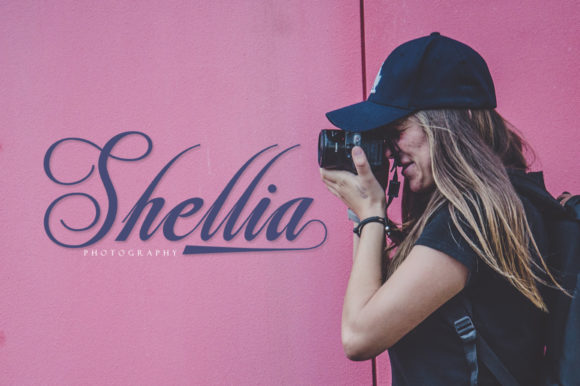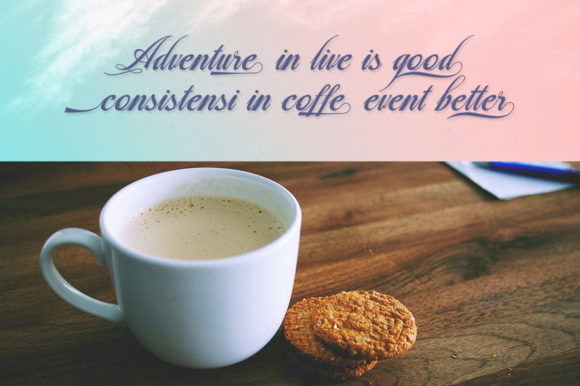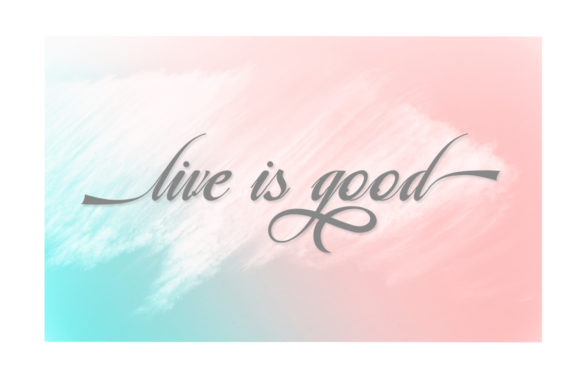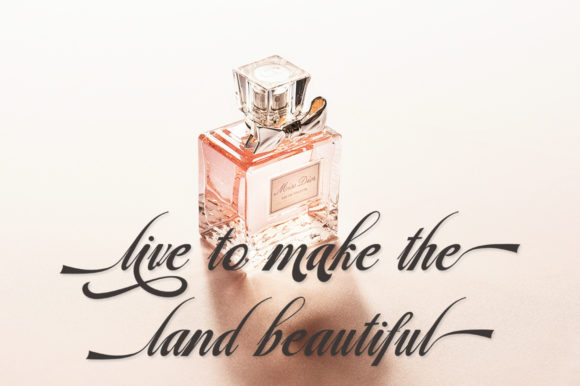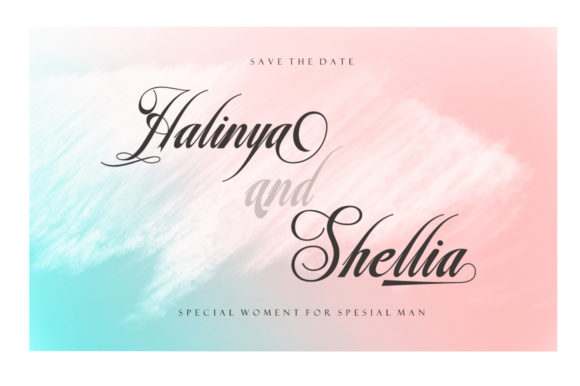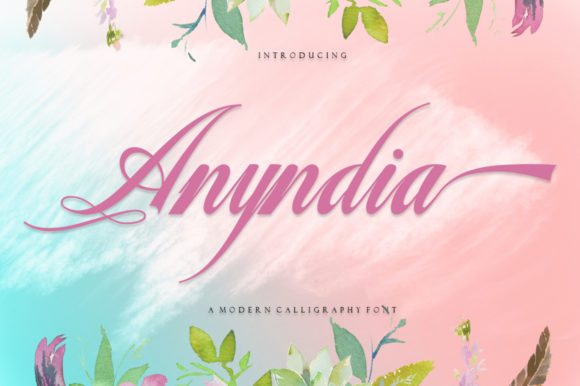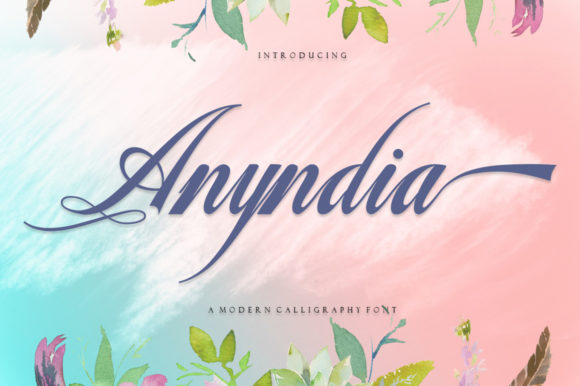
Introducing Anyndia Font: The Elegant and Modern Script Font for Your Creative Projects
Are you a designer or crafter looking for a font that exudes elegance, romance, and playfulness? Look no further than Anyndia Font! This stunning script font is designed to capture the hearts of creatives with its modern and sophisticated style. In this article, we’ll dive into the world of Anyndia Font, exploring its features, benefits, and uses, as well as provide tips on how to make the most of this beautiful font.
What is Anyndia Font?
Anyndia Font is a romantic script font that boasts an elegant and modern design. Its playful look and feel make it perfect for a wide range of creative projects, from wedding invitations and branding materials to digital content and craft projects. With its flowing lines and curvaceous strokes, Anyndia Font is sure to add a touch of sophistication and whimsy to any design.
Key Features of Anyndia Font
- Elegant and Modern Design: Anyndia Font features a sleek and contemporary design that is perfect for designers and crafters who want to create stunning visual content.
- Romantic and Playful Style: This font’s romantic and playful style makes it ideal for projects that require a touch of whimsy and sophistication.
- Highly Versatile: Anyndia Font can be used for a wide range of creative projects, from digital content to print materials.
- Easy to Read: Despite its elegant and cursive design, Anyndia Font is highly legible, making it perfect for body text and headlines.
Benefits of Using Anyndia Font
So, why should you choose Anyndia Font for your creative projects? Here are just a few benefits of using this stunning script font:
- Adds a Touch of Elegance: Anyndia Font’s elegant design adds a touch of sophistication to any project, making it perfect for high-end branding and marketing materials.
- Creates a Romantic Ambiance: This font’s romantic style is perfect for creating a warm and inviting ambiance in your designs, making it ideal for wedding invitations, Valentine’s Day cards, and other romantic projects.
- Stand Out from the Crowd: With its unique and modern design, Anyndia Font is sure to make your projects stand out from the crowd and grab the attention of your audience.
How to Use Anyndia Font
Anyndia Font is highly versatile and can be used for a wide range of creative projects. Here are a few ideas to get you started:
- Wedding Invitations: Use Anyndia Font to create stunning wedding invitations that exude elegance and romance.
- Branding Materials: Add a touch of sophistication to your branding materials, such as business cards, letterheads, and brochures.
- Digital Content: Use Anyndia Font to create engaging digital content, such as social media graphics, blog posts, and email newsletters.
- Craft Projects: Add a touch of whimsy and elegance to your craft projects, such as handmade cards, scrapbooking, and DIY decorations.
Tips and Tricks for Using Anyndia Font
Here are a few tips and tricks to help you make the most of Anyndia Font:
- Pair with Other Fonts: Experiment with pairing Anyndia Font with other fonts to create a unique and visually appealing design.
- Use for Headlines and Titles: Use Anyndia Font for headlines and titles to add a touch of elegance and sophistication to your designs.
In conclusion, Anyndia Font is a stunning script font that is perfect for designers and crafters who want to add a touch of elegance, romance, and playfulness to their creative projects. With its modern and sophisticated design, highly legible and versatile style, and wide range of uses, Anyndia Font is sure to become a favorite in your font collection.
| Font Name | Anyndia Font |
| Author | George Studio |